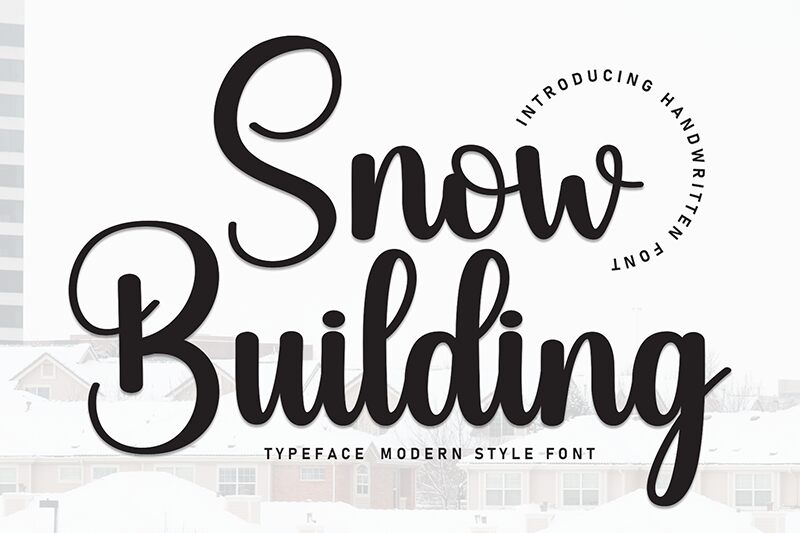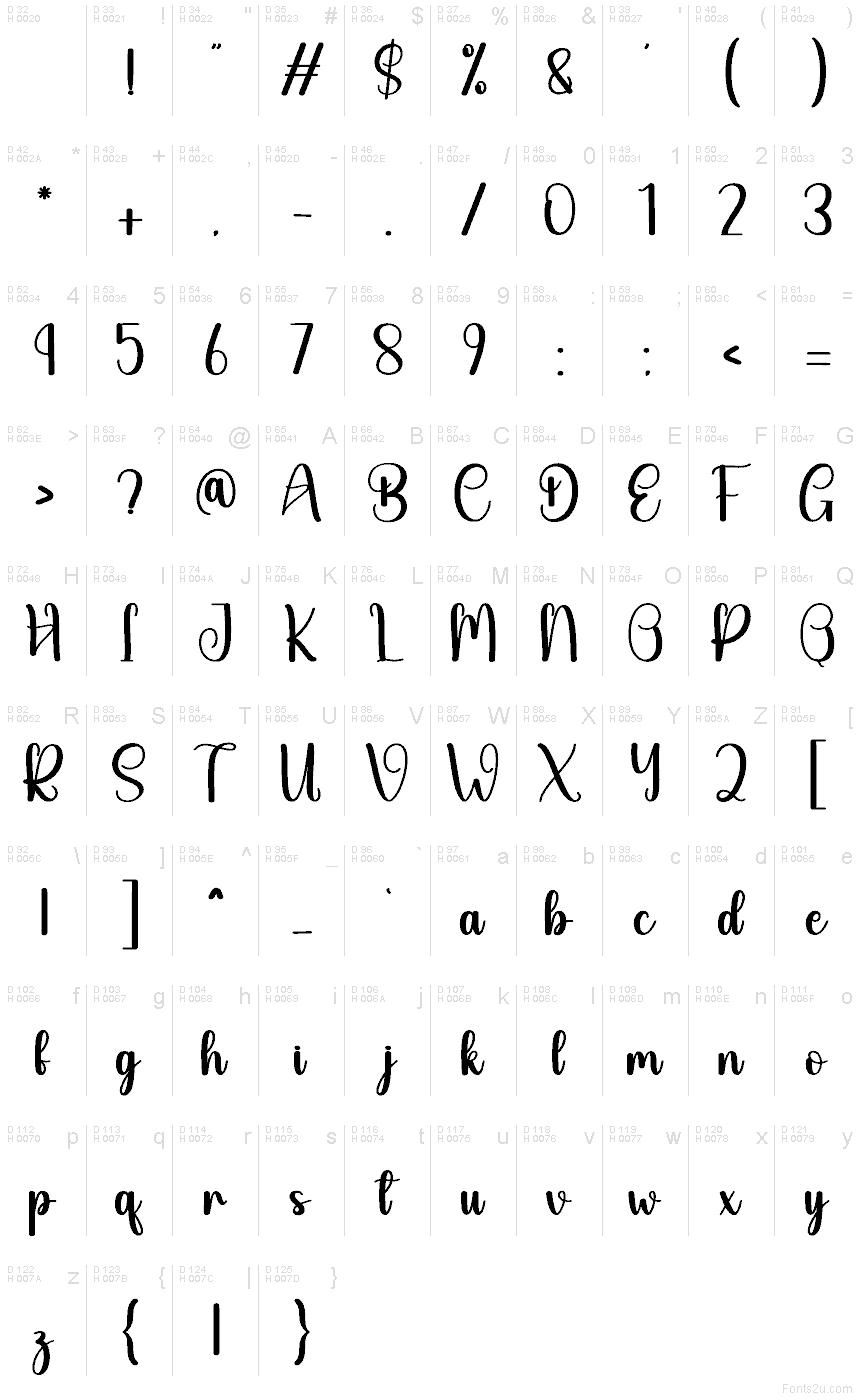
Snow Building
Snow Building font by Scratchones is an elegant script brush font with a classic charm and decorative flourishes. Each character flows continuously into the next, creating a cursive style that’s perfect for every special occasion. In addition to the classic charm it embodies, Snow Building has beautiful calligraphic elements that set it apart from similar script fonts.
This free script font is ideal for invitations, greeting cards, event posters, logos, website titles and headers. Use it within branding/packaging design projects or to enrich merchandising items like t-shirts or mugs.